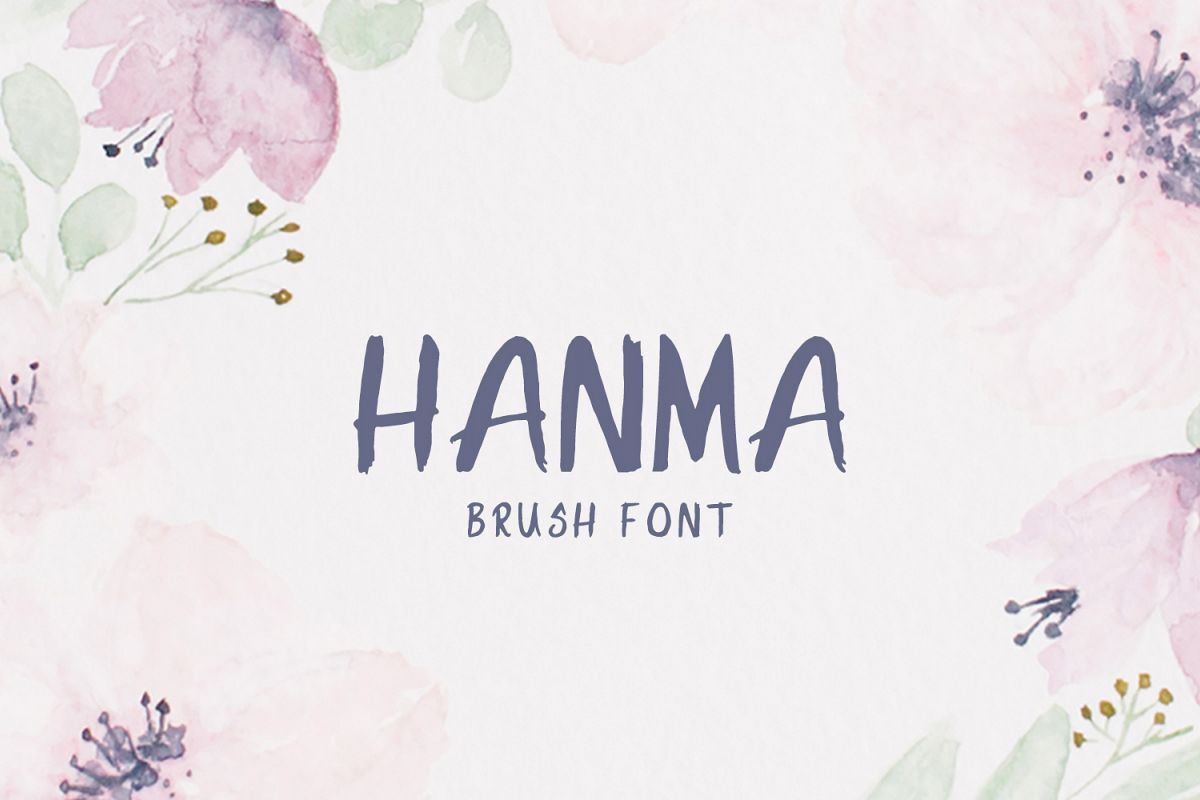
Hanma Brush Font
Hanma is a stylish contemporary brush font you've been looking for, Its unique flow and style makes it perfect to use for prints, logos, quotes, badges, labels, packaging design, blog, websites, designs, headlines, banners, posters, printings, T-shirts, magazines, promotional product, templates, etc.